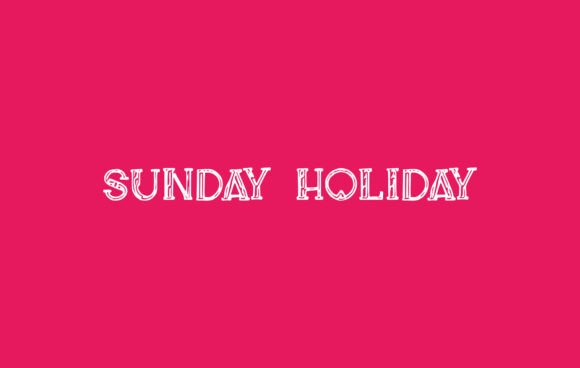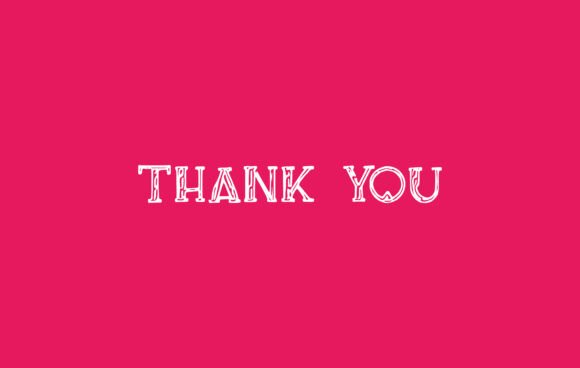
Glaedeig Font: Elevate Your Designs with a Romantic Handwritten Touch
In the world of typography, a well-crafted font can make all the difference in bringing your creative ideas to life. If you’re a designer or crafter looking for a unique and authentic handwritten font with a romantic touch, look no further than Glaedeig. This beautifully designed font is poised to become a true favorite in your collection, offering a versatile and elegant solution for a wide range of design projects.
The Charm of Glaedeig Font
Glaedeig font is an authentic handwritten font that exudes a sense of romance and sophistication. Its carefully crafted letters and flowing curves make it perfect for designs that require a personal touch. Whether you’re working on a magazine headline, social media post, branding campaign, wedding invitation, or card, Glaedeig font is sure to impress. Its legibility and versatility make it an excellent choice for both title and body text, allowing you to maintain consistency throughout your design.
Key Features of Glaedeig Font
- Authentic Handwritten Style: Glaedeig font boasts an authentic handwritten style that adds a touch of warmth and personality to your designs.
- Romantic Touch: The font’s elegant curves and flowing lines give it a romantic feel, perfect for designs that require a sense of sophistication and charm.
- Legibility: Despite its handwritten nature, Glaedeig font remains highly legible, making it suitable for both title and body text.
- Versatility: Glaedeig font can be used for a wide range of design projects, from magazine headlines and social media posts to branding campaigns, wedding invitations, and cards.
Design Possibilities with Glaedeig Font
The possibilities are endless when it comes to designing with Glaedeig font. Here are a few ideas to get you started:
- Magazine Headlines: Use Glaedeig font to create eye-catching headlines that add a touch of elegance to your magazine spreads.
- Social Media Posts: Add a personal touch to your social media posts with Glaedeig font, making them stand out in a crowded feed.
- Branding Campaigns: Incorporate Glaedeig font into your branding campaigns to convey a sense of sophistication and romance.
- Wedding Invitations: Make your wedding invitations truly special with Glaedeig font, adding a touch of elegance and whimsy.
- Cards and Stationery: Use Glaedeig font to create beautiful cards and stationery that showcase your personal style.
Why Choose Glaedeig Font?
With so many fonts available, why choose Glaedeig? Here are a few reasons why Glaedeig font stands out:
- Unique and Authentic: Glaedeig font offers a unique and authentic handwritten style that sets it apart from other fonts.
- Elegant and Sophisticated: The font’s romantic touch and elegant curves make it perfect for designs that require a sense of sophistication.
- Highly Versatile: Glaedeig font can be used for a wide range of design projects, making it a valuable addition to your font collection.
In conclusion, Glaedeig font is a beautifully designed handwritten font that offers a unique and romantic touch to your designs. Its authenticity, elegance, and versatility make it an excellent choice for designers and crafters looking to elevate their creative projects. Whether you’re working on a magazine headline, social media post, branding campaign, wedding invitation, or card, Glaedeig font is sure to impress. So why wait? Add Glaedeig font to your collection today and take your designs to the next level!